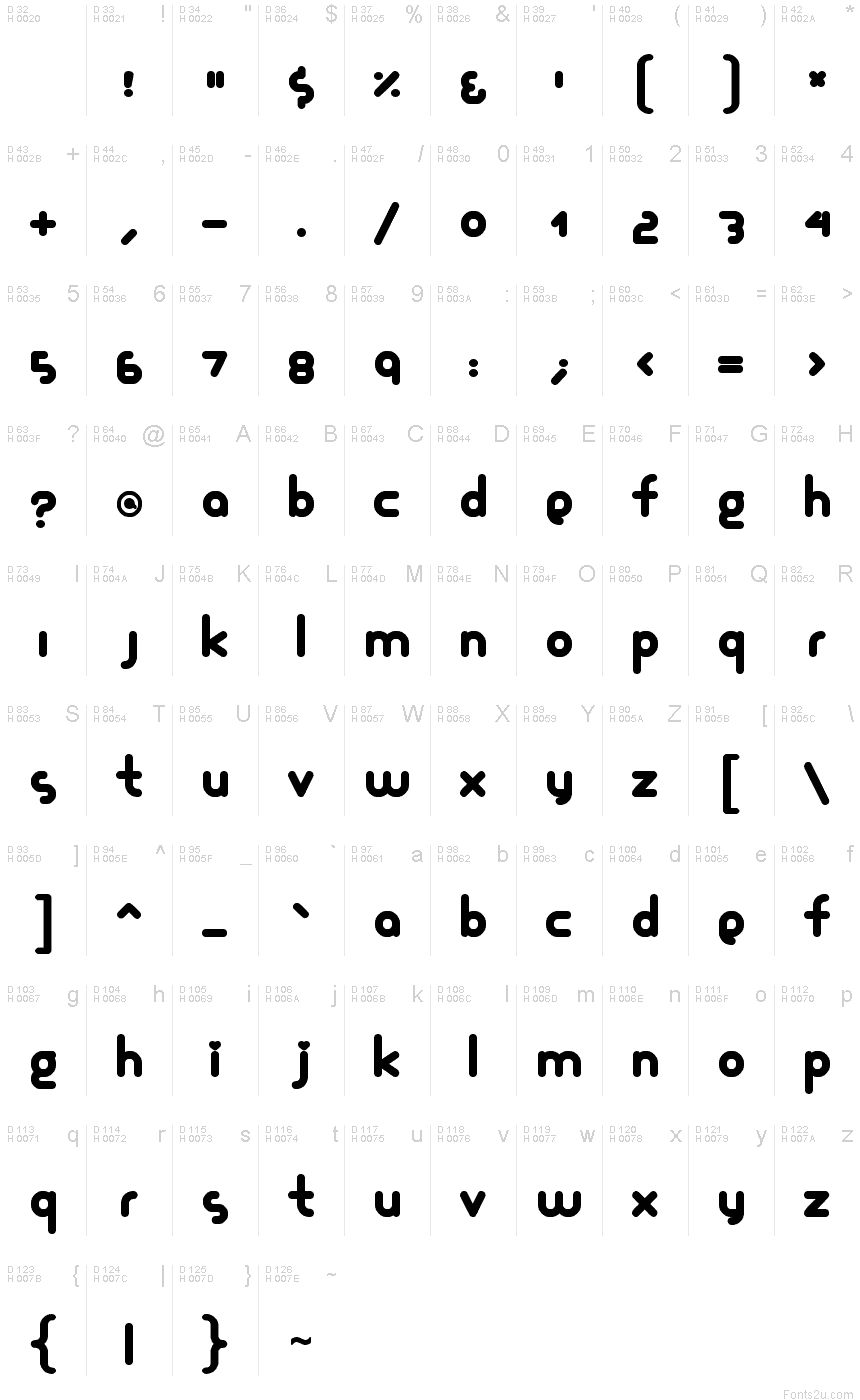
Glamourgirl
Glamourgirl font by Jakob Fischer is a free modern display typeface with a soft, chunky attitude. Its rounded, pill-like forms and snug spacing give every word a bubbly, almost inflatable look, as if the letters were molded from glossy plastic. The strokes feel thick and reassuring, with smooth curves that keep things playful rather than harsh or techy.
Using Glamourgirl, you get a bold, friendly voice that shines on kids’ branding, snack packaging, game titles, stickers, social graphics, and quirky logo work. This free font loves big sizes where its rounded shapes can really pop, and it pairs nicely with a simple geometric sans for body copy or captions.